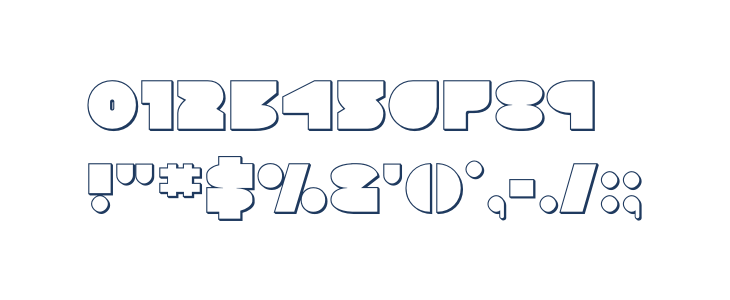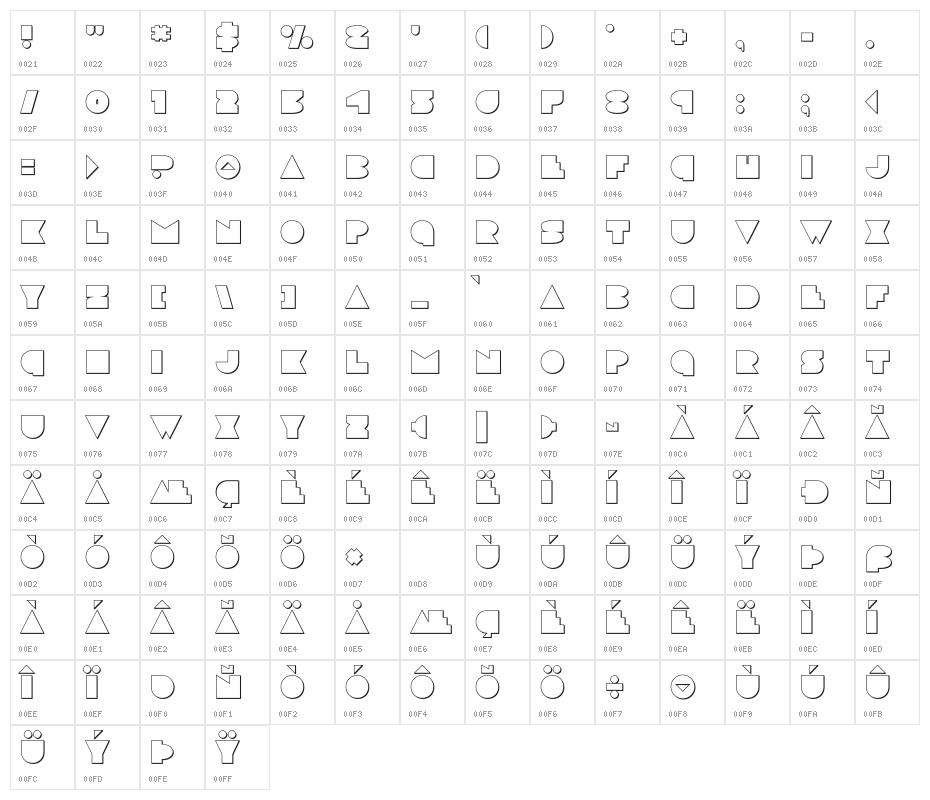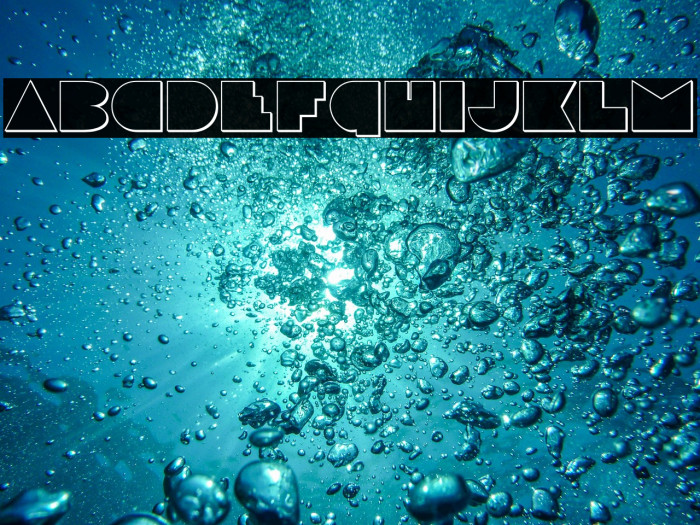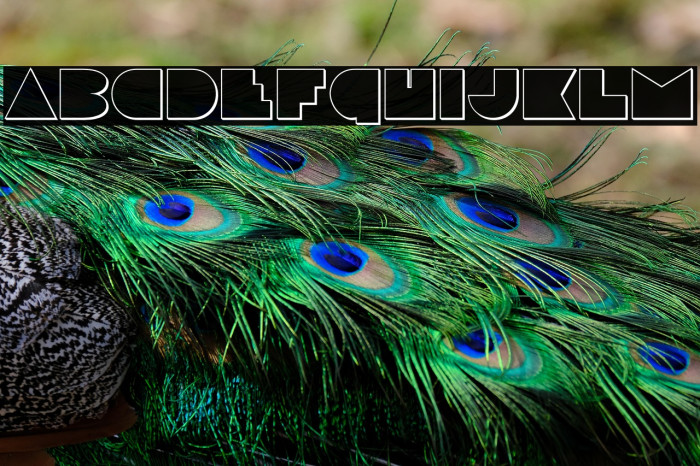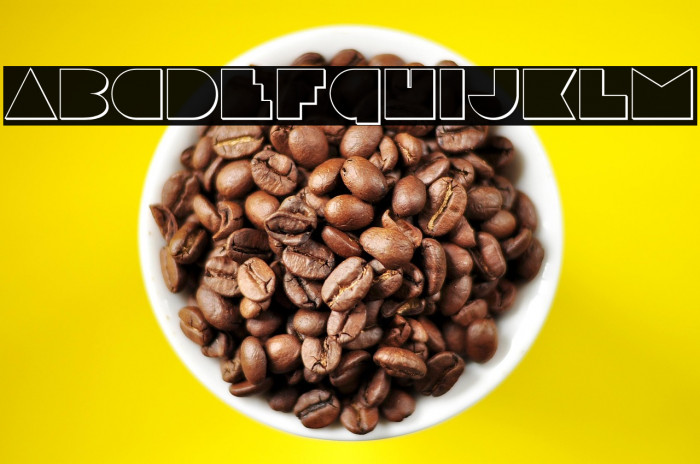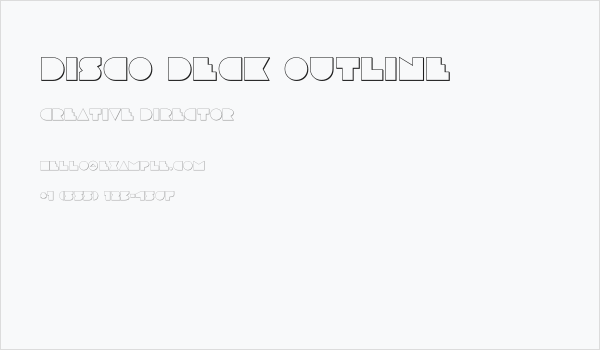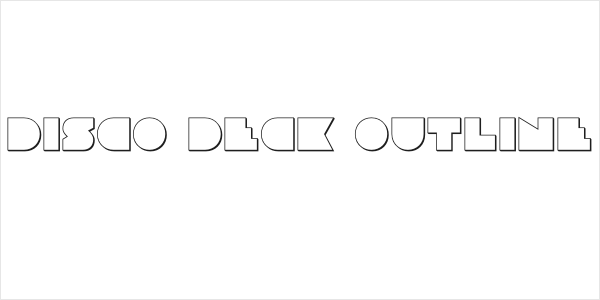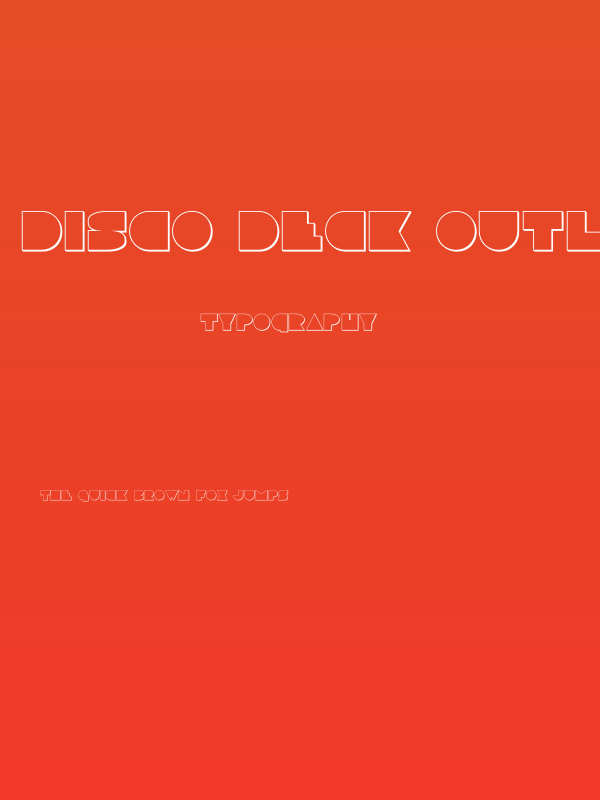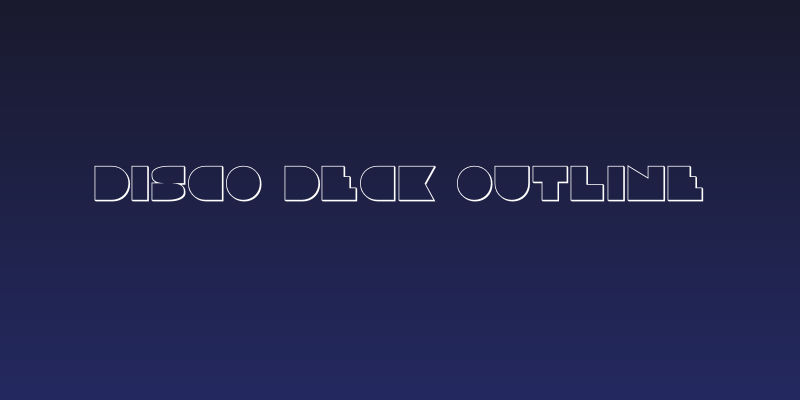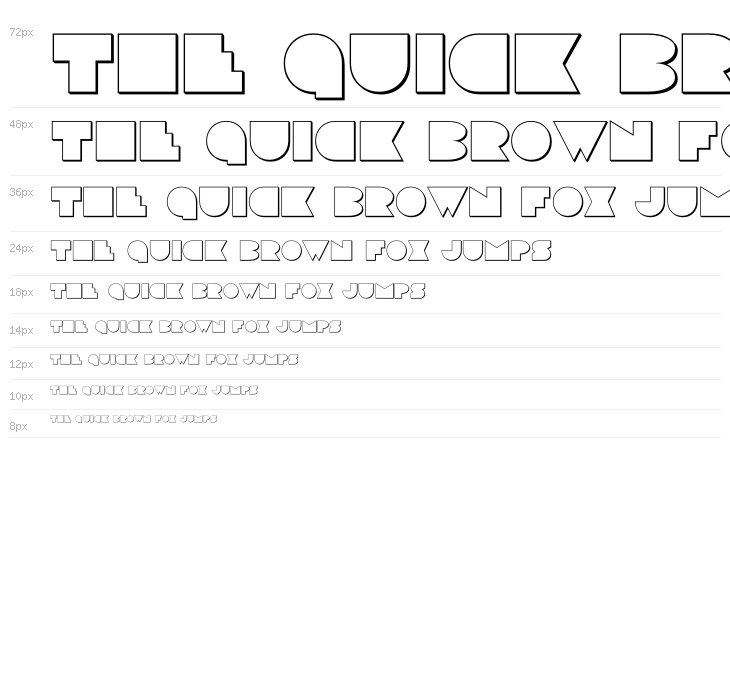
Disco Deck Outline Font
Disco Deck Outline Description
This font features a bold, geometric design with an outline style that emphasizes its unique shapes. Each character is crafted with a combination of straight lines and curves, creating a modern and futuristic appearance. The uppercase and lowercase letters maintain a consistent style, while the numbers and special characters complement the overall aesthetic. The font's design is reminiscent of retro and disco themes, making it ideal for projects that require a touch of nostalgia with a contemporary twist. Its outline nature allows for creative use of color and layering in design projects.
| Overall Style | Retro, Futuristic |
| Proposed Projects | Ideal for posters, album covers, event flyers, and branding that seeks a retro or disco vibe. |